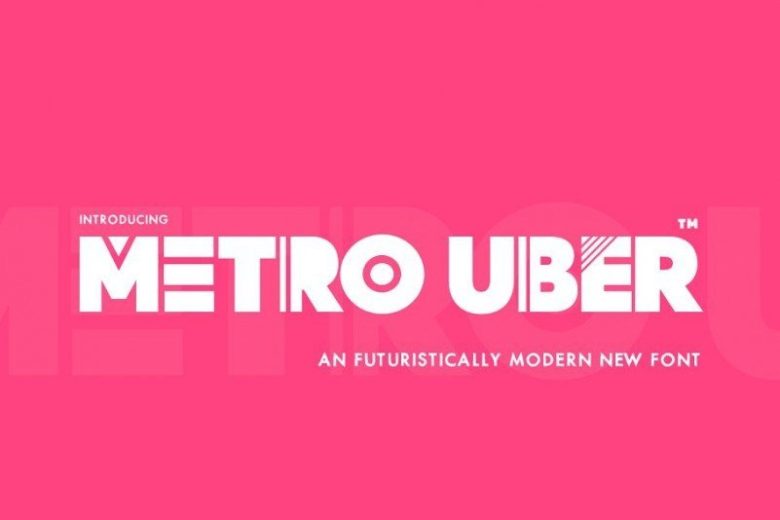
Metro Uber Font
Introducing Metro Uber Sans. This is sans serif typeface that designed to be functional. Metro Uber.. the brand new font from salt and pepper designs that can really get your designs moving!
A futuristically modern offering that has unique characters and lots of quirks! Great for logos, quotes and branding.
It also pairs well with others! The font includes two different versions of each letter with the upper and lowercase keys. Enjoy!